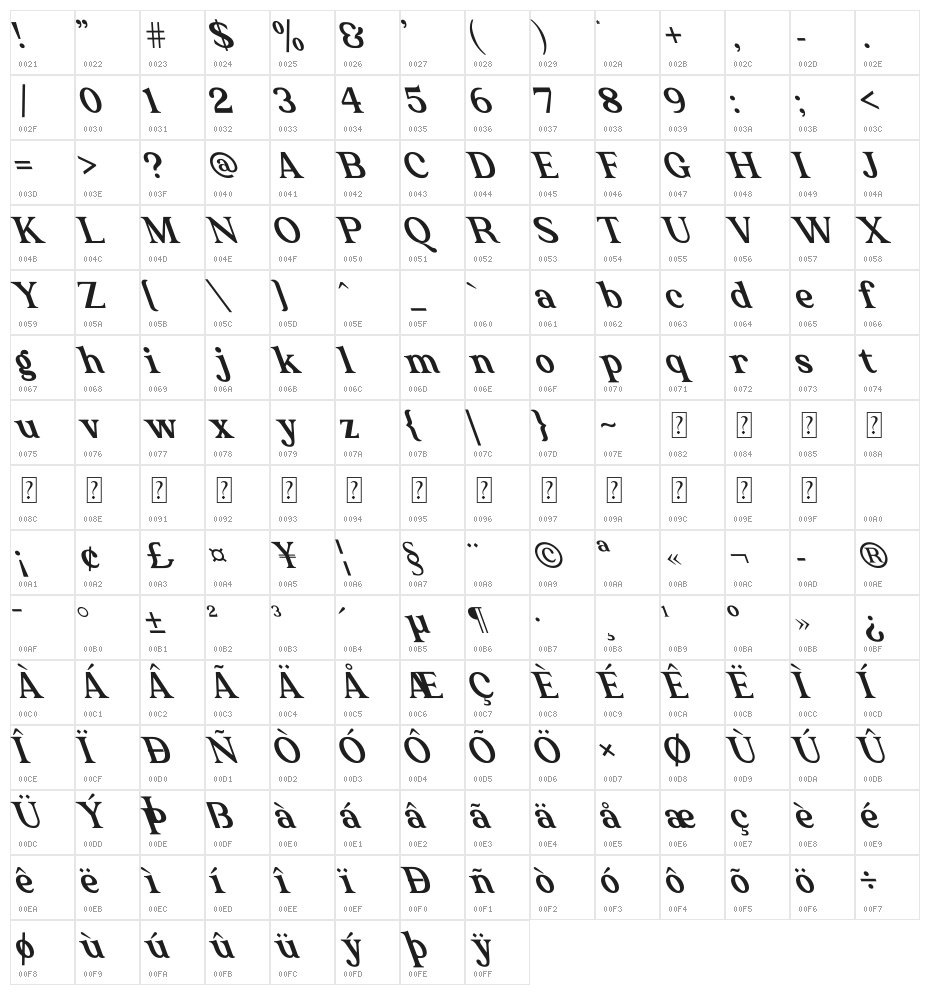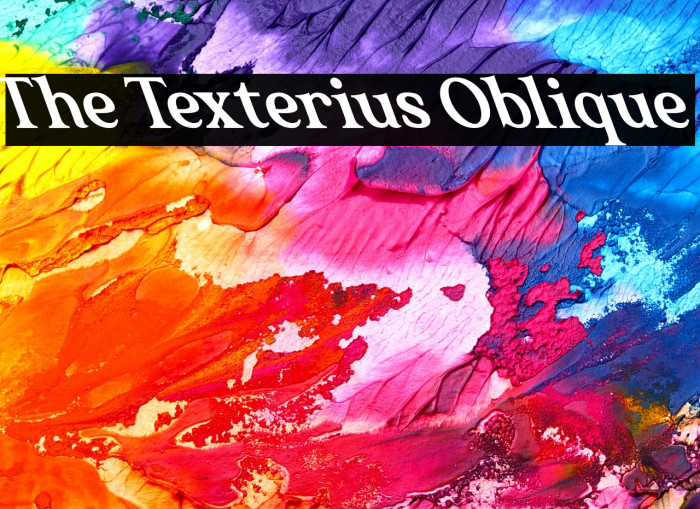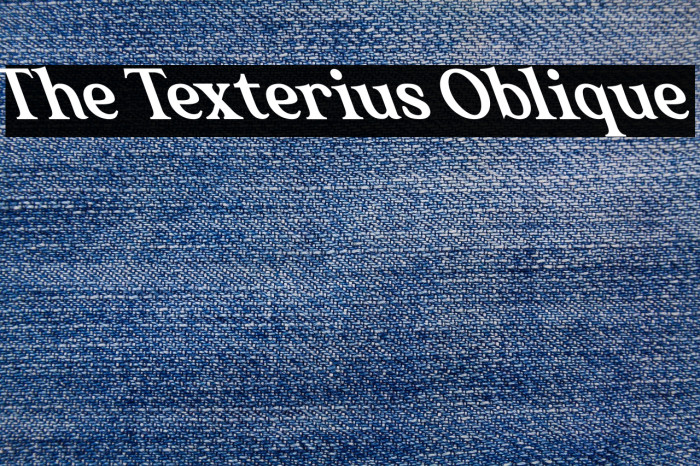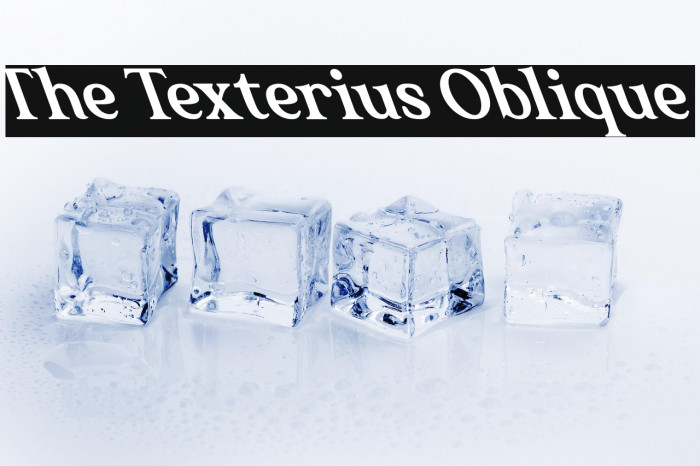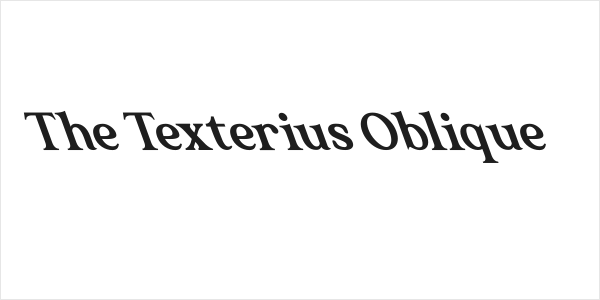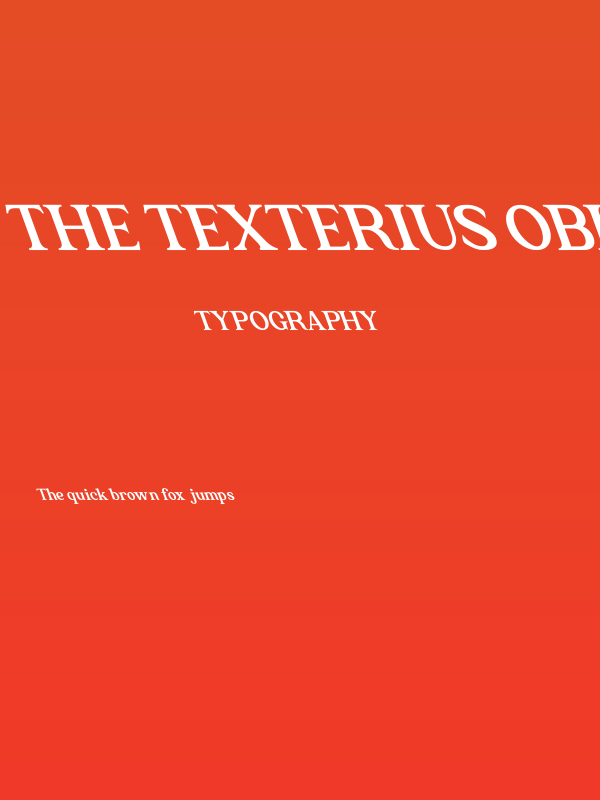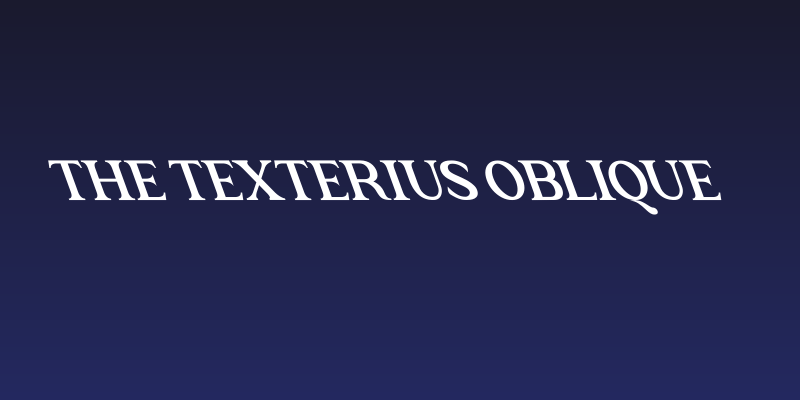
The Texterius Oblique Font
The Texterius Oblique Description
This font features a distinct oblique style with a classic serif design. The characters exhibit a slight forward slant, giving the typeface a dynamic and elegant appearance. The serifs are pronounced, adding a touch of sophistication and readability. The uppercase letters are bold and commanding, while the lowercase letters maintain a consistent flow with smooth curves. Numbers are well-proportioned, and the special characters are crafted to match the overall aesthetic. The font's contrast is medium, with noticeable variations in stroke thickness that enhance its visual appeal.
| Use Case | Headlines, Logos, Editorial Design |
| Proposed Projects | Ideal for editorial design, book covers, formal invitations, and branding projects that require a touch of elegance. |